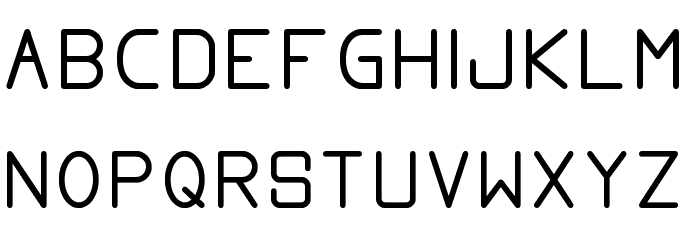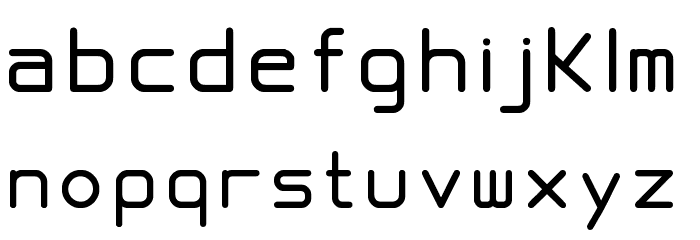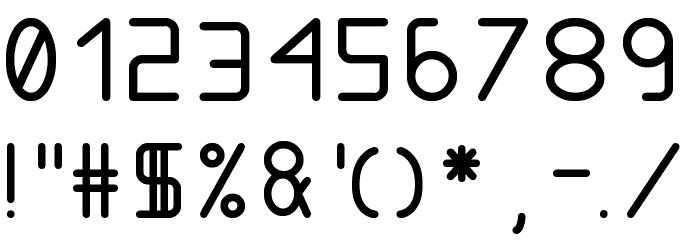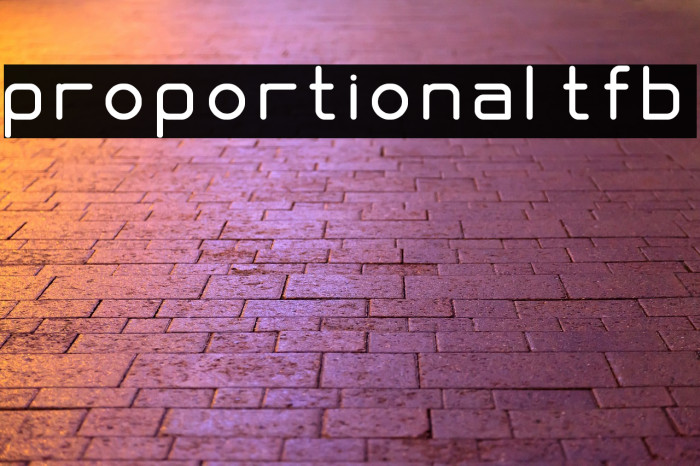
proportional tfb Font
This font features a modern and clean design with a geometric structure. The characters are uniformly proportioned, giving it a balanced and harmonious appearance. The strokes are consistent in thickness, contributing to a sleek and contemporary look. The uppercase letters are bold and assertive, while the lowercase letters maintain a friendly and approachable style. The numerals are clear and easy to read, making them suitable for various applications. Special characters are well-integrated, ensuring versatility in design projects.
A modern, geometric font with consistent stroke thickness and balanced proportions.
- Proposed Projects: Ideal for tech branding, digital interfaces, modern advertising, and editorial design.